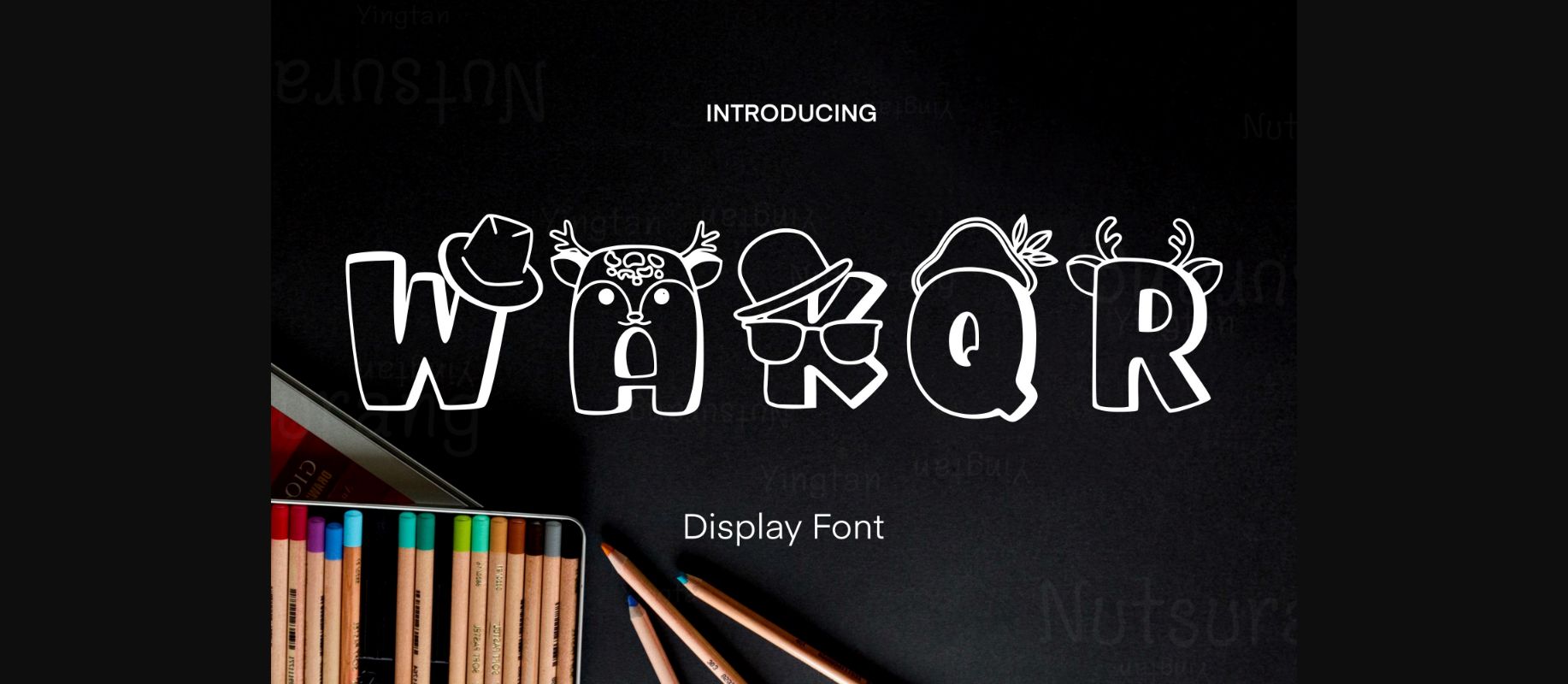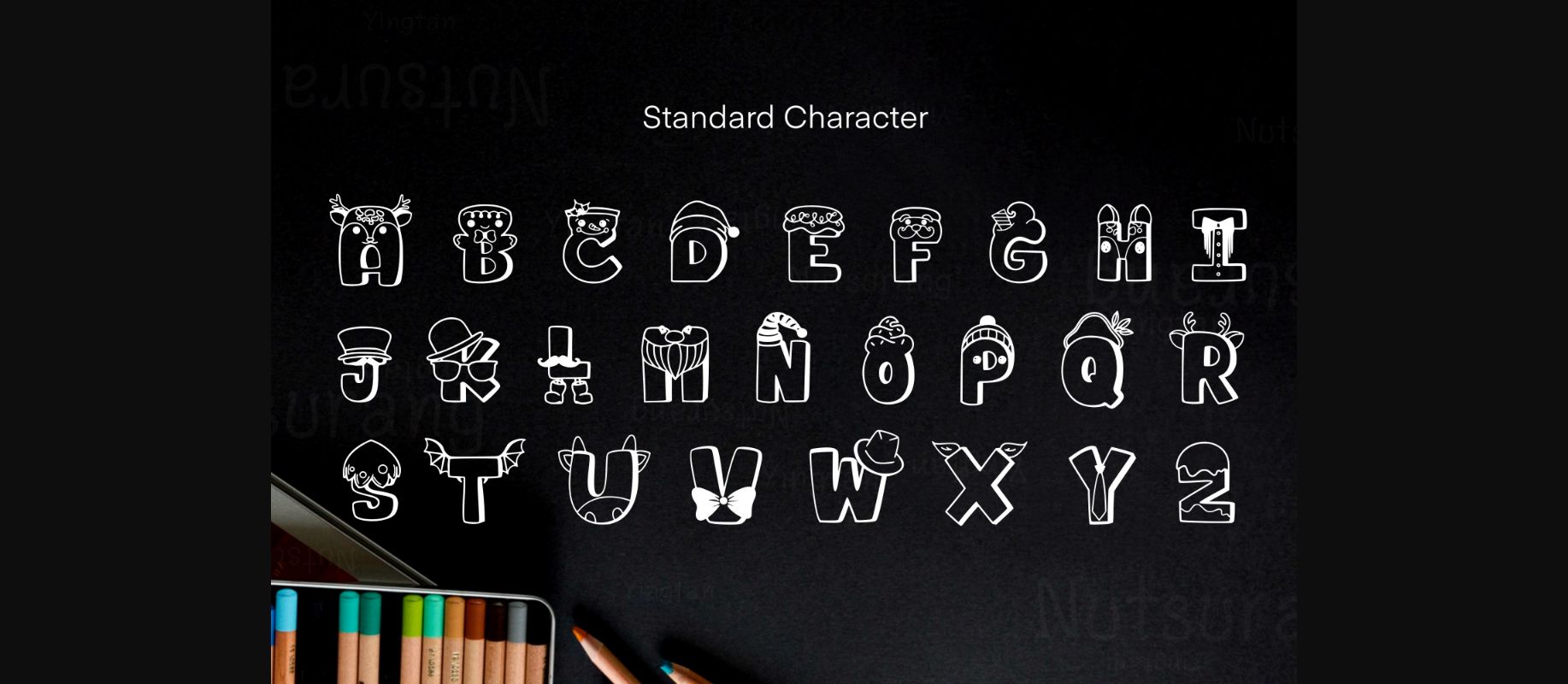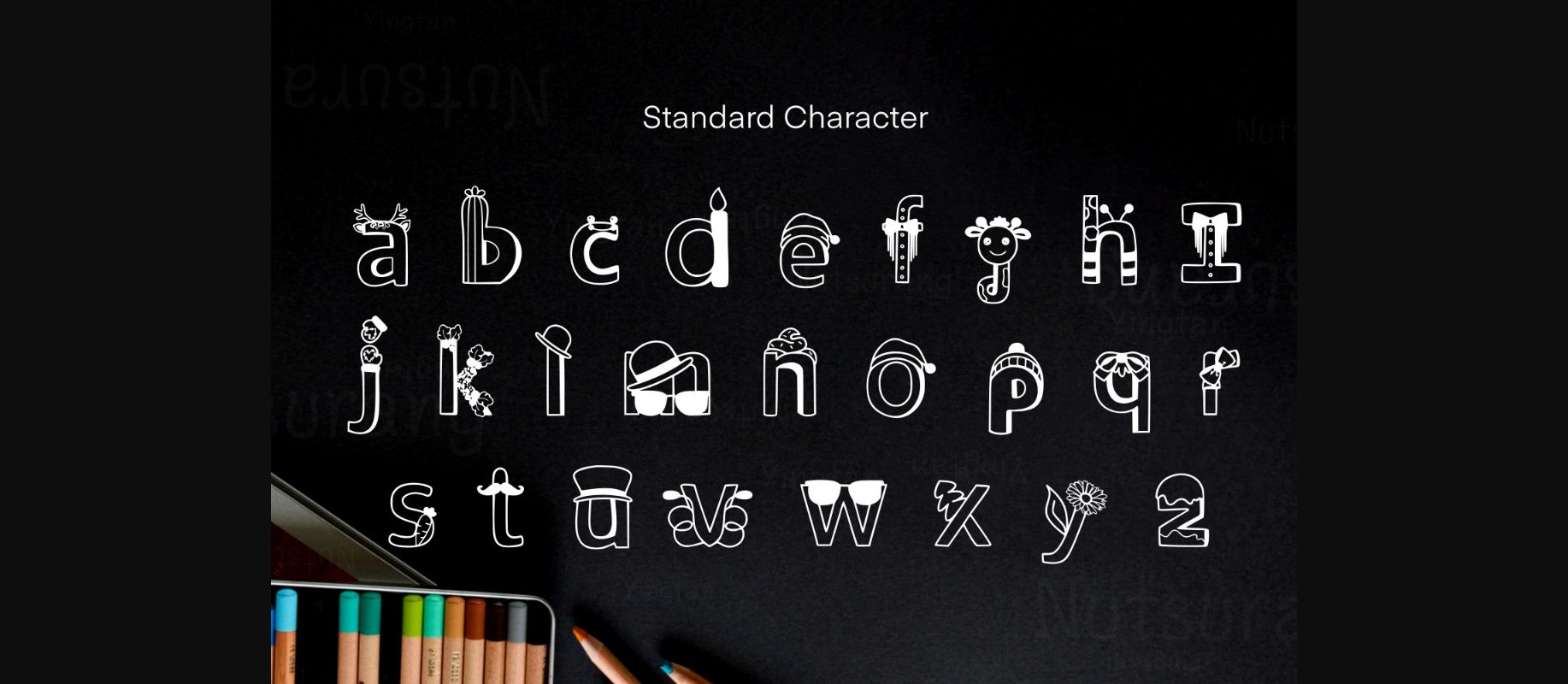
About Wakqr Font
Wakqr is a cool, quirky and original decorative font. It is perfect for any branding project such as logos, t-shirt printing, creative products, and more.